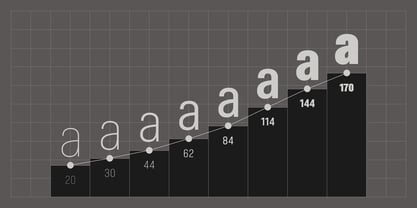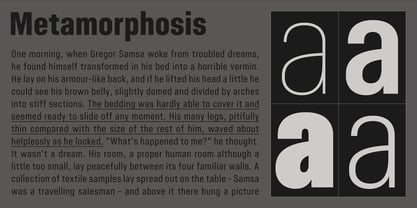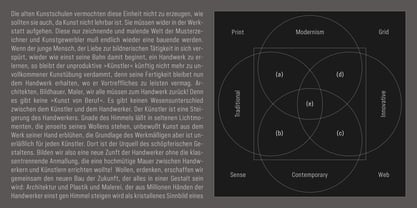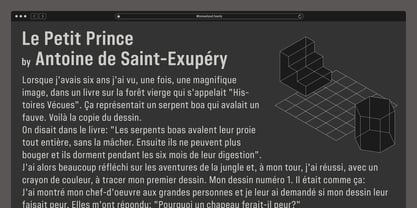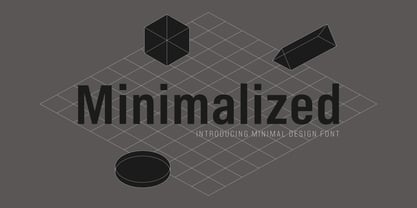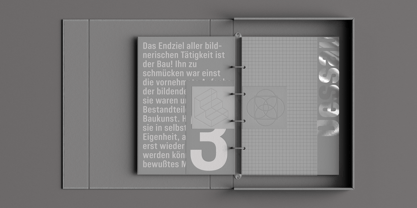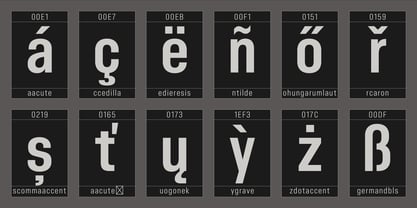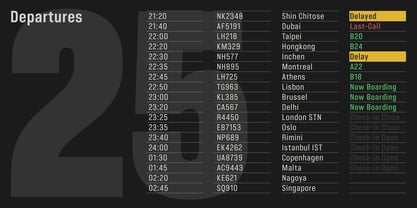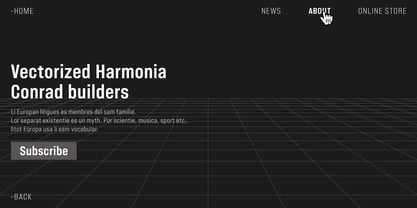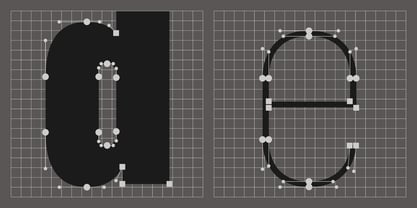
Minimalized
From the late 1980s through the 1990s and into the early 2000s, graphic design saw a major shift toward simplicity and neutrality. One of its defining characteristics was the removal of ornamentation in favor of an artificial, industrial aesthetic. This trend was clearly influenced by the widespread adoption of computers and the rise of the internet.
Rather than relying on traditional craftsmanship and intuition, designers began to embrace grid systems and modular structures. While these designs may have appeared amateurish at first glance, they embodied a sense of newness that resonated with the times.
By the late 2000s, a reaction to this movement emerged, leading to a renewed appreciation for organic and intuitive design—a sensibility that continues to influence today’s aesthetics.
This typeface was created as an homage to the early days of computers and the internet. In particular, the designer sought to capture the atmosphere of the 1990s, a period during which he first began studying design.
The type family consists of eight weights, each with a corresponding italic, and supports a wide range of Latin-based languages.